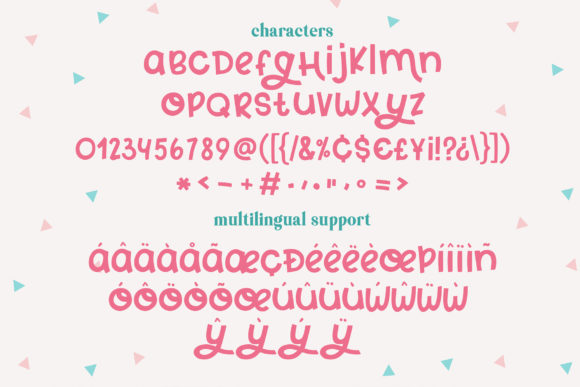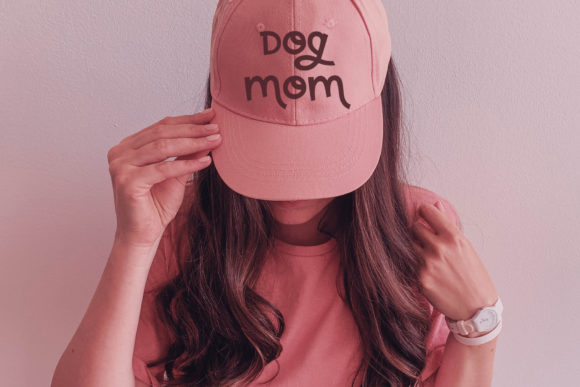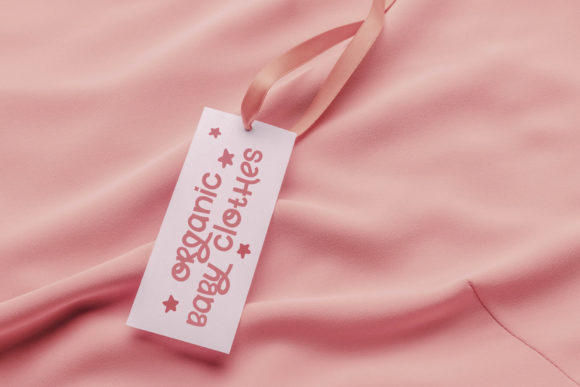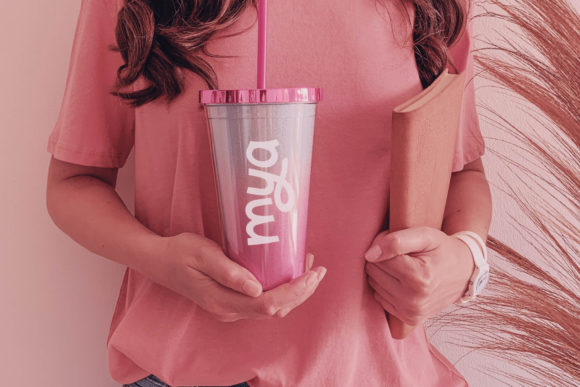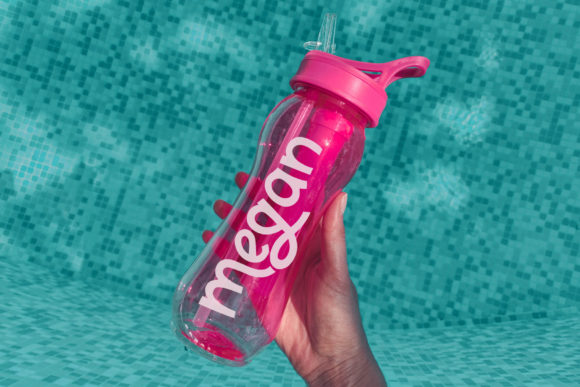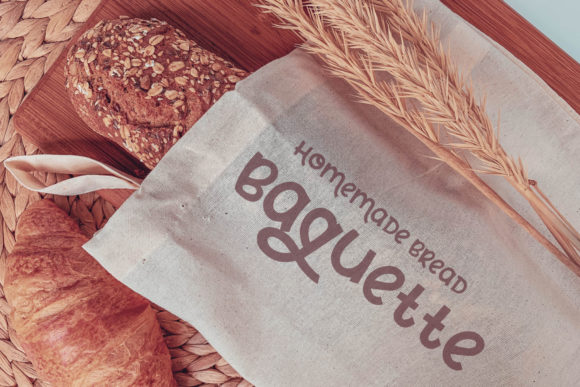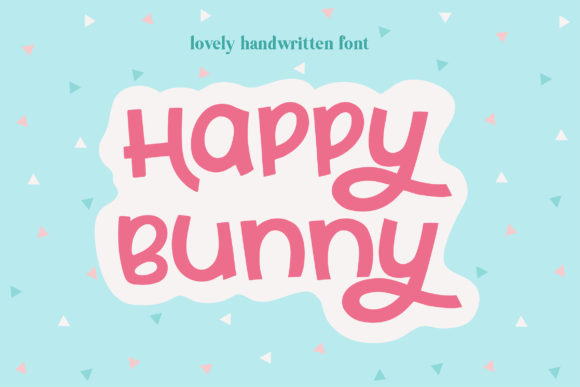
Introducing Happy Bunny Font: The Ultimate Chic and Cool Display Font
Are you a designer, crafty enthusiast, or simply someone who loves to add a personal touch to their projects? Look no further! Happy Bunny Font is here to elevate your creative game with its unique blend of style and playfulness. In this article, we’ll dive into the world of Happy Bunny Font, exploring its features, uses, and benefits that make it a must-have for any creative project.
What is Happy Bunny Font?
Happy Bunny Font is a modern display font designed to make a statement. Its chic and cool aesthetic makes it perfect for a wide range of applications, from product packaging and branding projects to magazine covers, social media graphics, and even wedding designs. This versatile font is sure to add a touch of personality to any project, making it stand out from the crowd.
Key Features of Happy Bunny Font
• Unique and Playful Design: Happy Bunny Font boasts a distinctive and eye-catching design that’s sure to capture attention. Its playful vibe makes it ideal for projects that require a touch of whimsy and fun.
• High-Quality and Readable: Despite its playful nature, Happy Bunny Font remains highly readable, even at smaller sizes. This makes it perfect for use in a variety of contexts, from digital media to print materials.
• Multipurpose: Whether you’re working on a branding project, creating social media graphics, or designing a wedding invitation, Happy Bunny Font is up to the task. Its versatility knows no bounds!
• Easily Customizable: With Happy Bunny Font, you have the freedom to experiment with different colors, sizes, and styles to match your project’s unique needs.
Uses of Happy Bunny Font
So, where can you use Happy Bunny Font? The possibilities are endless! Here are some ideas to get you started:
• Product Packaging: Add a touch of personality to your product packaging with Happy Bunny Font. It’s perfect for labels, tags, and even custom boxes.
• Branding Projects: Establish your brand’s identity with a unique and memorable font. Happy Bunny Font is sure to make your brand stand out.
• Magazine Covers: Create eye-catching magazine covers that grab attention with Happy Bunny Font.
• Social Media Graphics: Elevate your social media game with custom graphics featuring Happy Bunny Font.
• Wedding Designs: Add a touch of whimsy and romance to your wedding designs, from invitations to signage.
Benefits of Using Happy Bunny Font
So, why choose Happy Bunny Font for your next project? Here are just a few benefits:
• Time-Saving: With Happy Bunny Font, you can create professional-looking designs in no time. Its unique design and high readability save you time and effort.
• Endless Creative Possibilities: Happy Bunny Font’s versatility opens up a world of creative possibilities. Experiment with different styles, colors, and contexts to bring your vision to life.
In conclusion, Happy Bunny Font is a game-changer for designers, crafters, and anyone looking to add a personal touch to their projects. Its unique blend of style, playfulness, and versatility makes it a must-have for any creative project. Whether you’re working on a branding project, creating social media graphics, or designing a wedding invitation, Happy Bunny Font is the perfect choice. So why wait? Download Happy Bunny Font today and unleash your creativity!